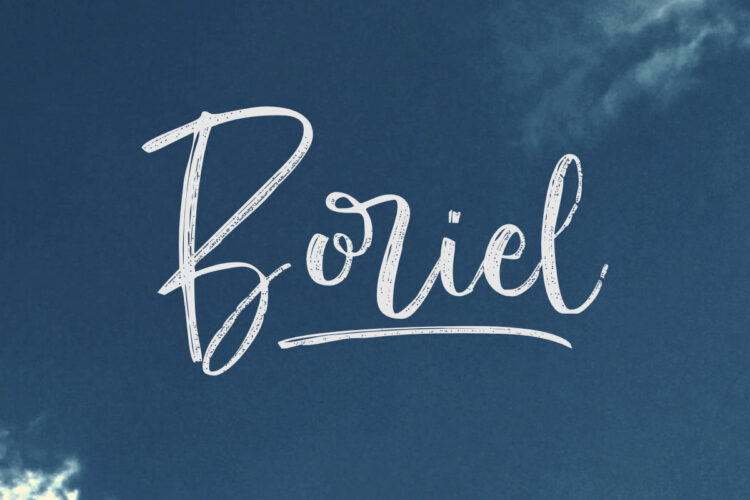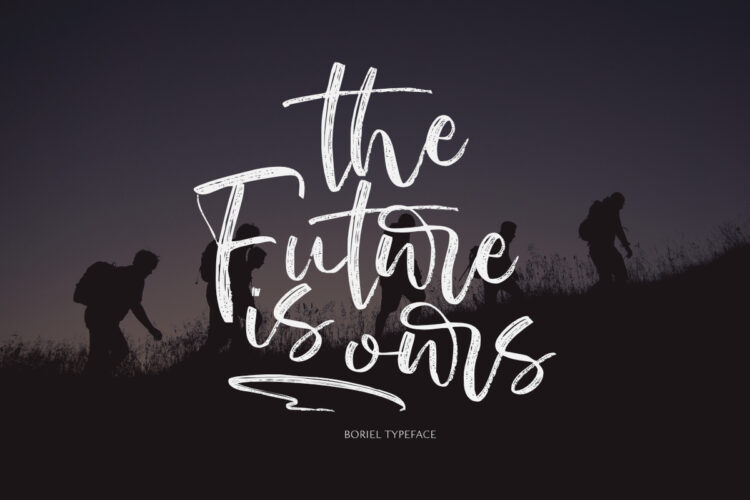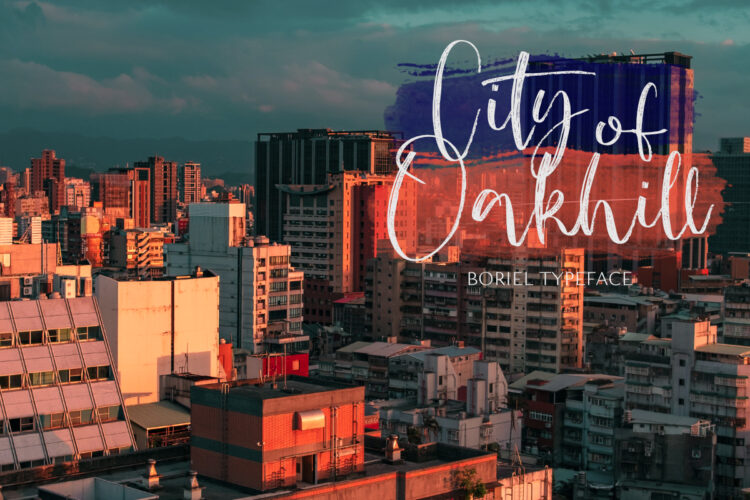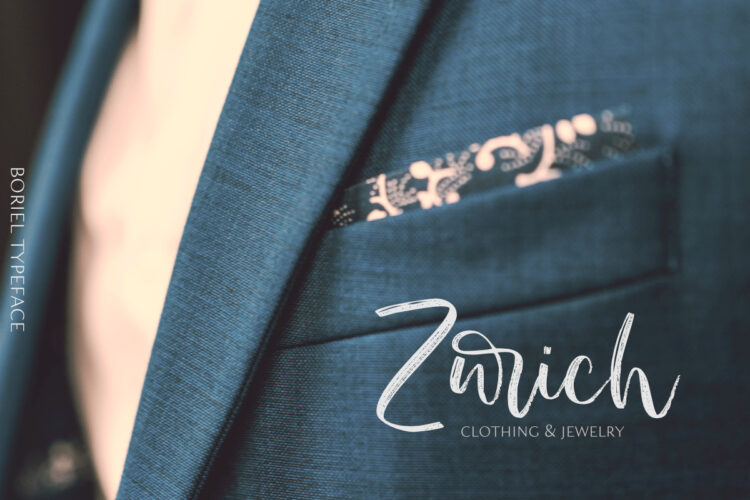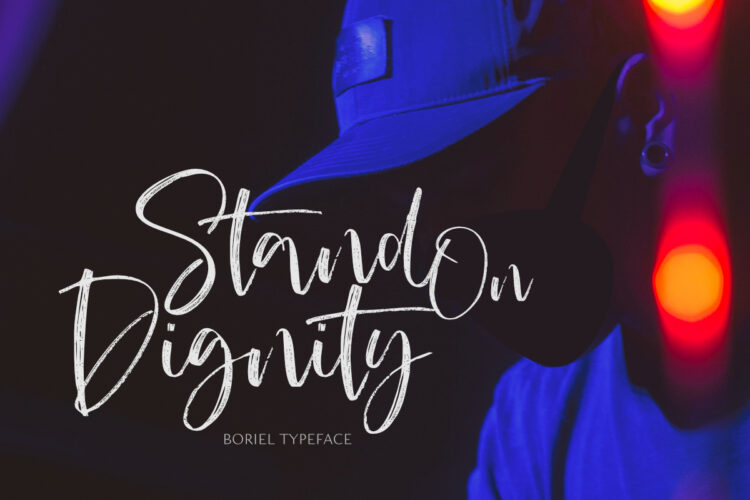
Boriel is a chic, refined script font that emanates sophistication and elegance. Its stylish alternates and ligatures make this font the perfect match for any project
- Basic Latin A-Z & a-z.
- Swashes & Ligatures